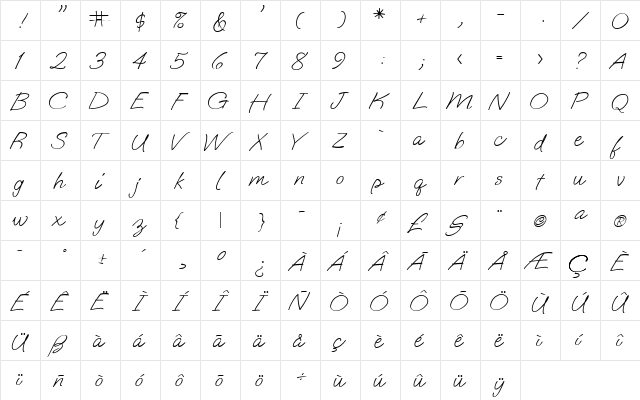
OoohBabyROB Regular
Design Context for OoohBabyROB Typeface
OoohBabyROB is a composed and adaptable typeface that performs quietly and consistently across a wide range of design contexts.
Pro Tip: Use OoohBabyROB in both headline and body roles to test its range before committing to a single application.